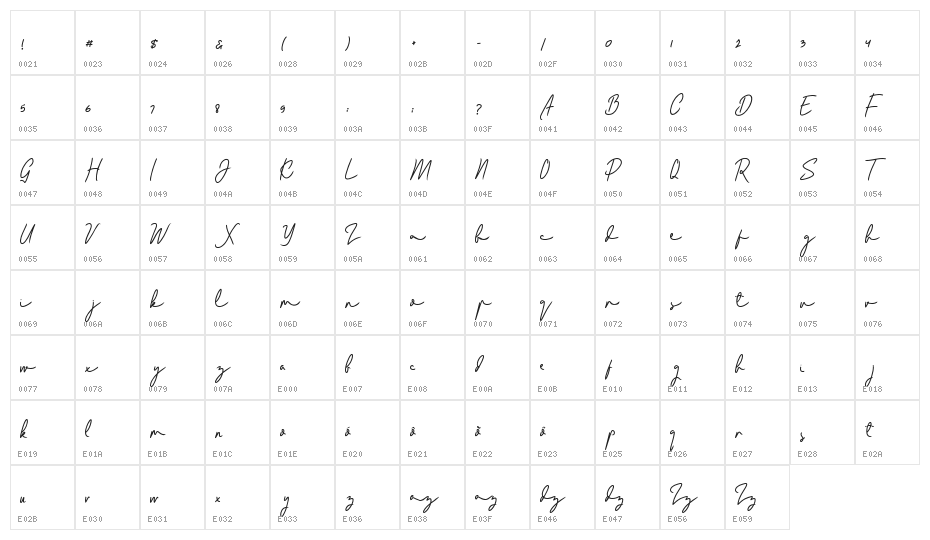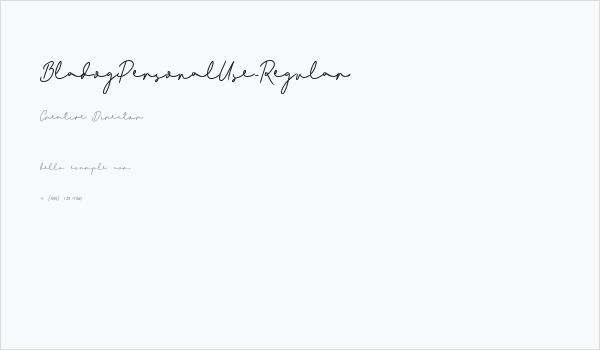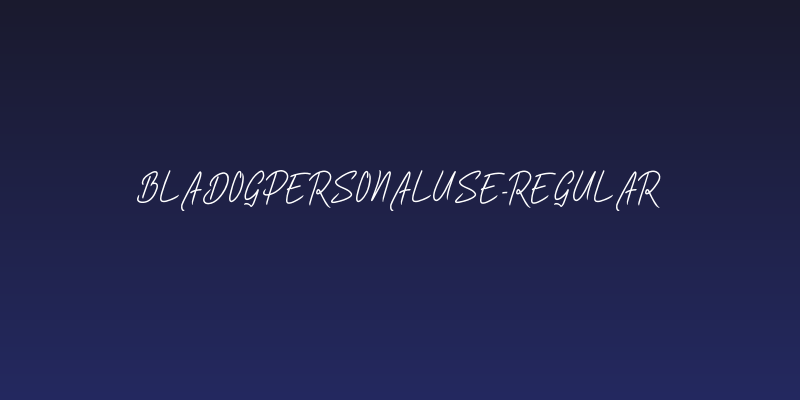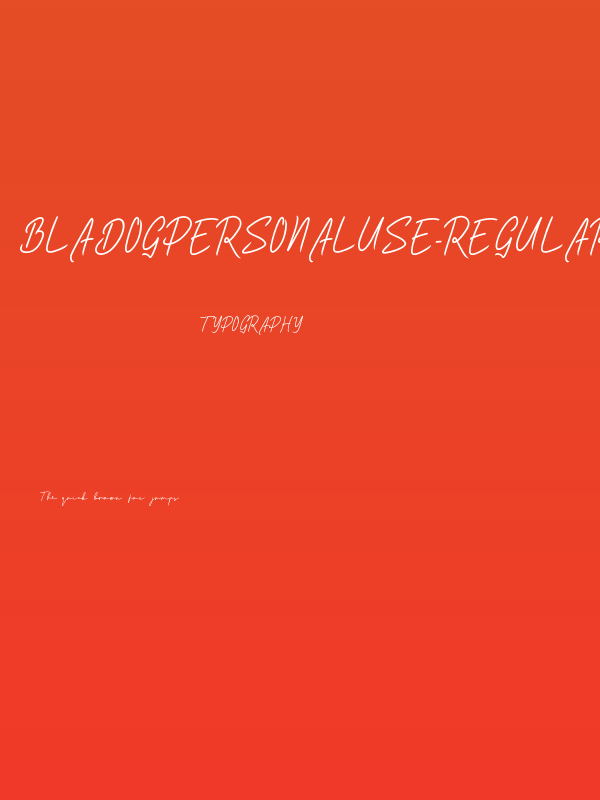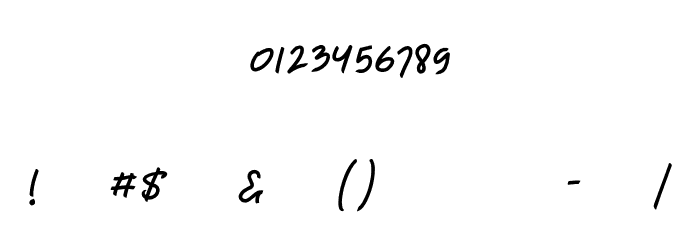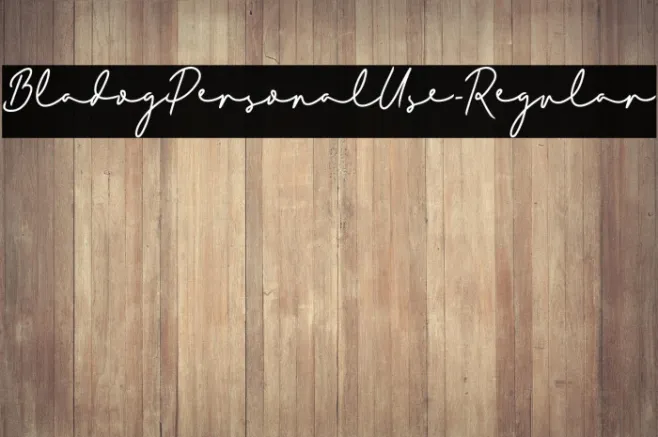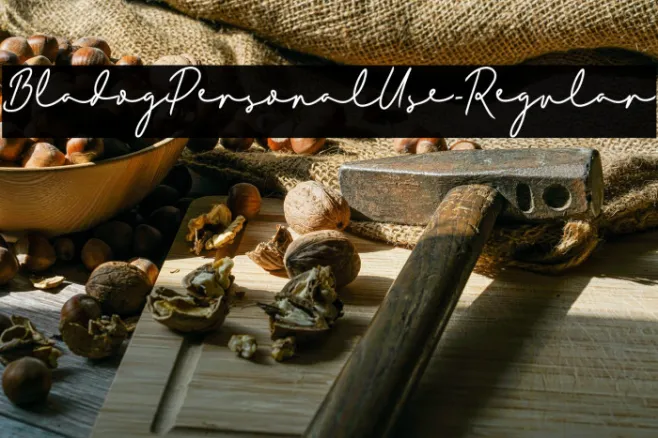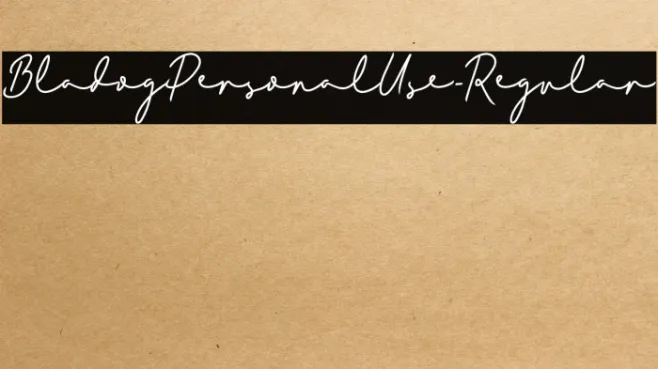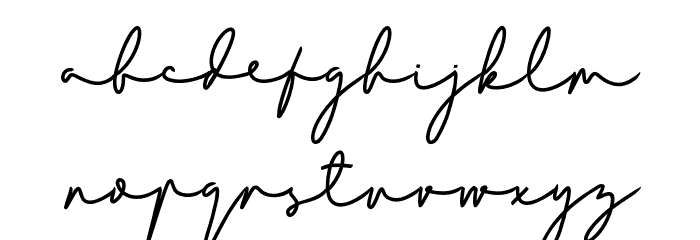
BladogPersonalUse-Regular Font
This font exudes a casual yet elegant handwritten style, characterized by its fluid and connected letterforms. The uppercase letters are bold and slightly slanted, giving a sense of movement and dynamism. The lowercase letters maintain a consistent flow, with smooth curves and loops that enhance its handwritten appeal. The numerals are clear and legible, matching the overall style of the alphabet. Special characters are thoughtfully designed to complement the letterforms, ensuring a cohesive look. This font is perfect for projects that require a personal touch, such as invitations, greeting cards, or branding materials.
| Overall Style | Casual, Elegant |
| Use Case | Logos, Headlines, Personal projects |
| Proposed Projects | Ideal for invitations, greeting cards, branding, and personal projects. |